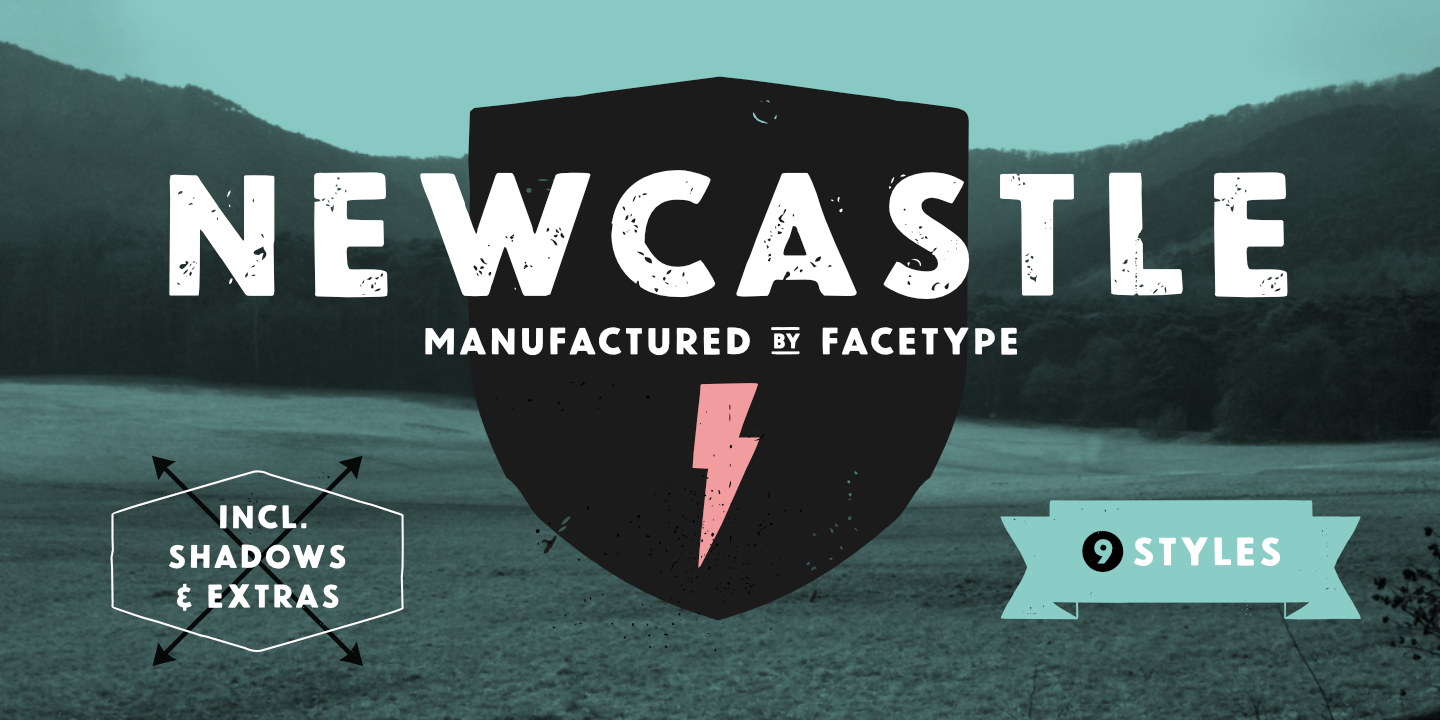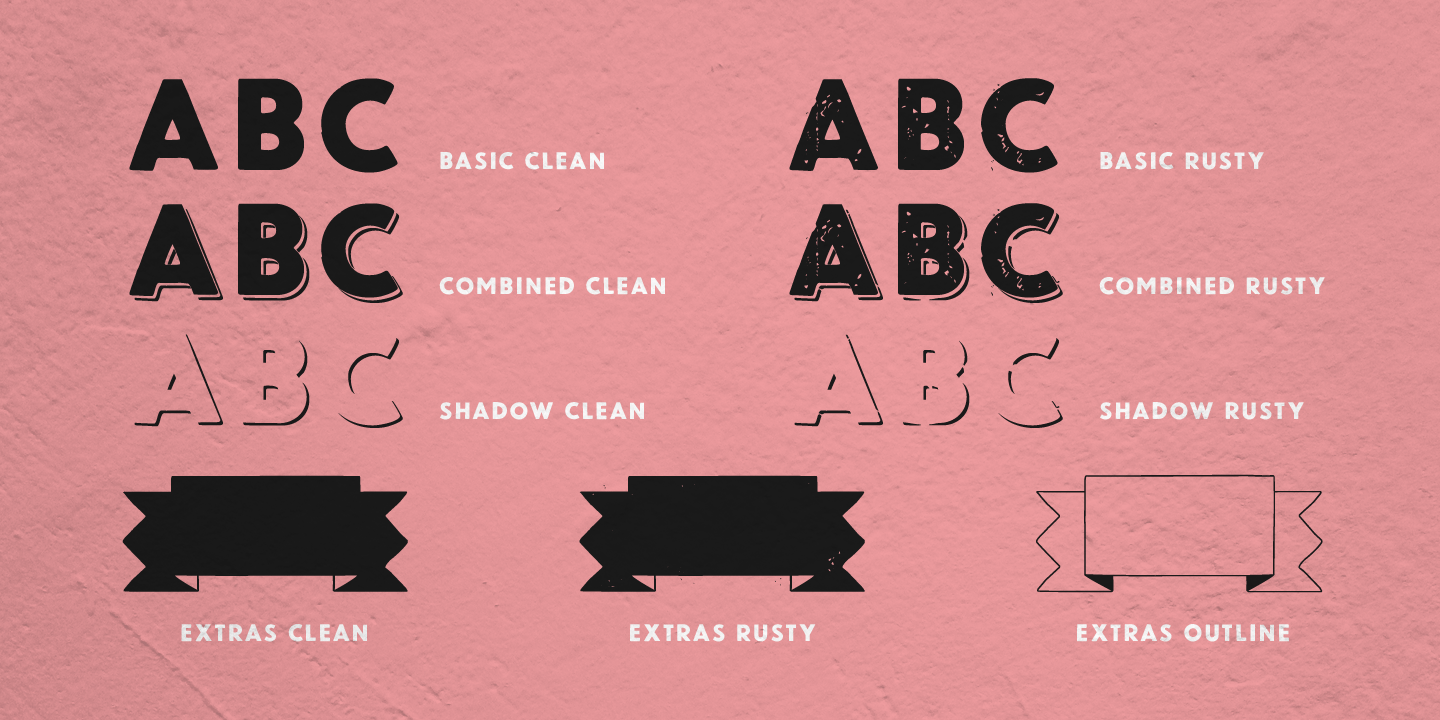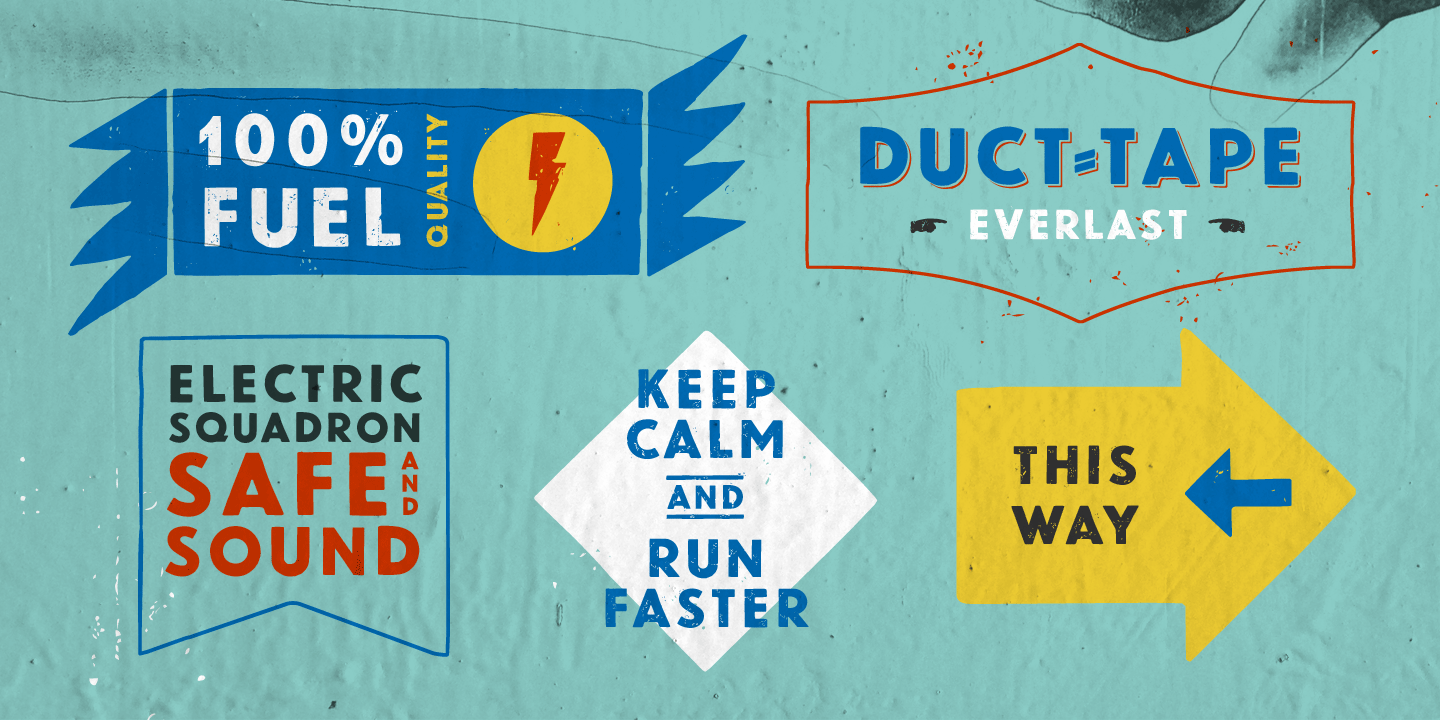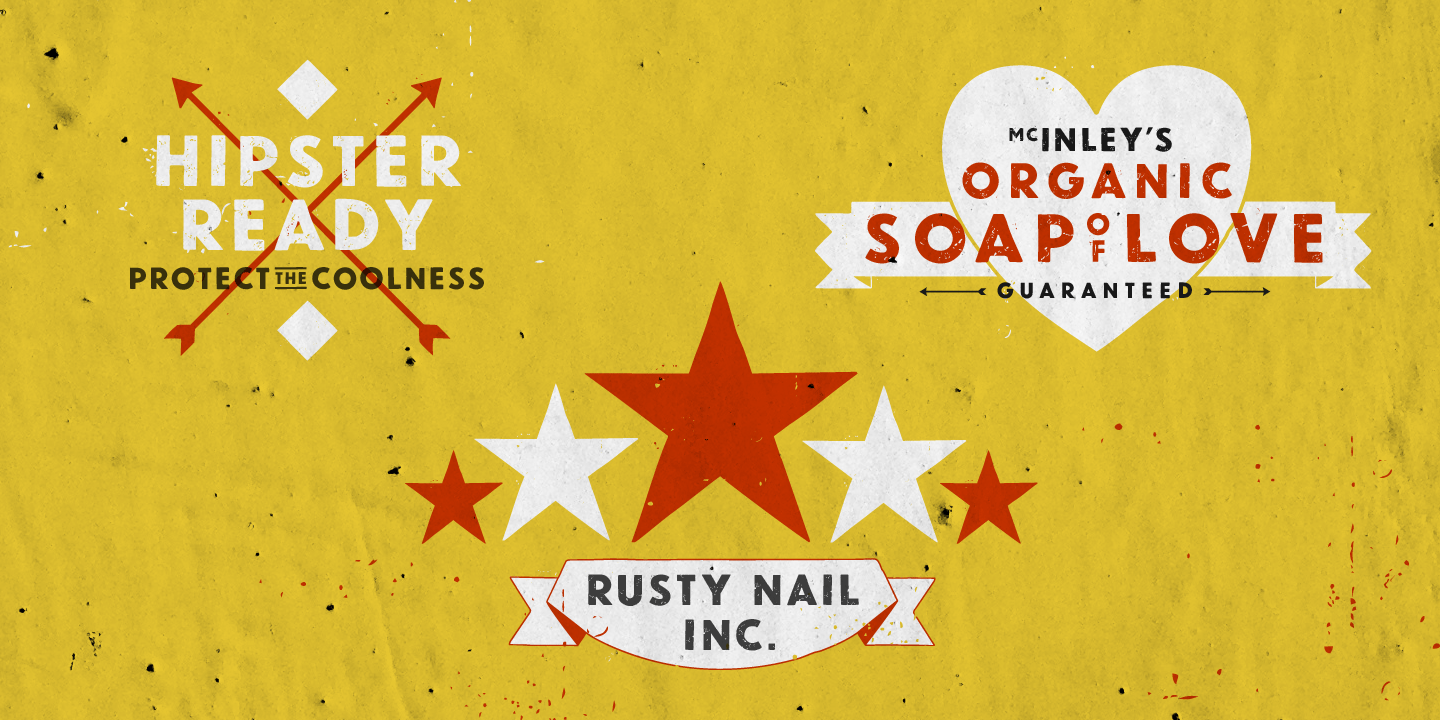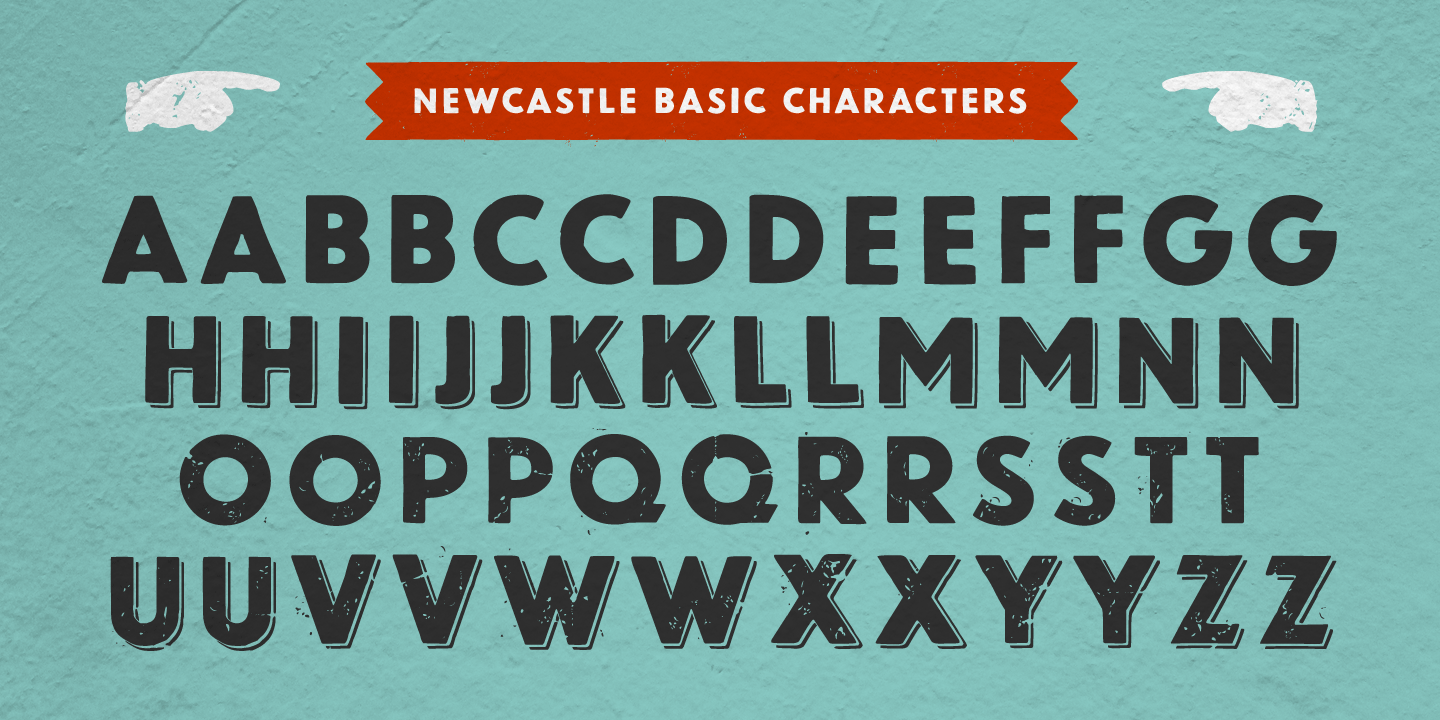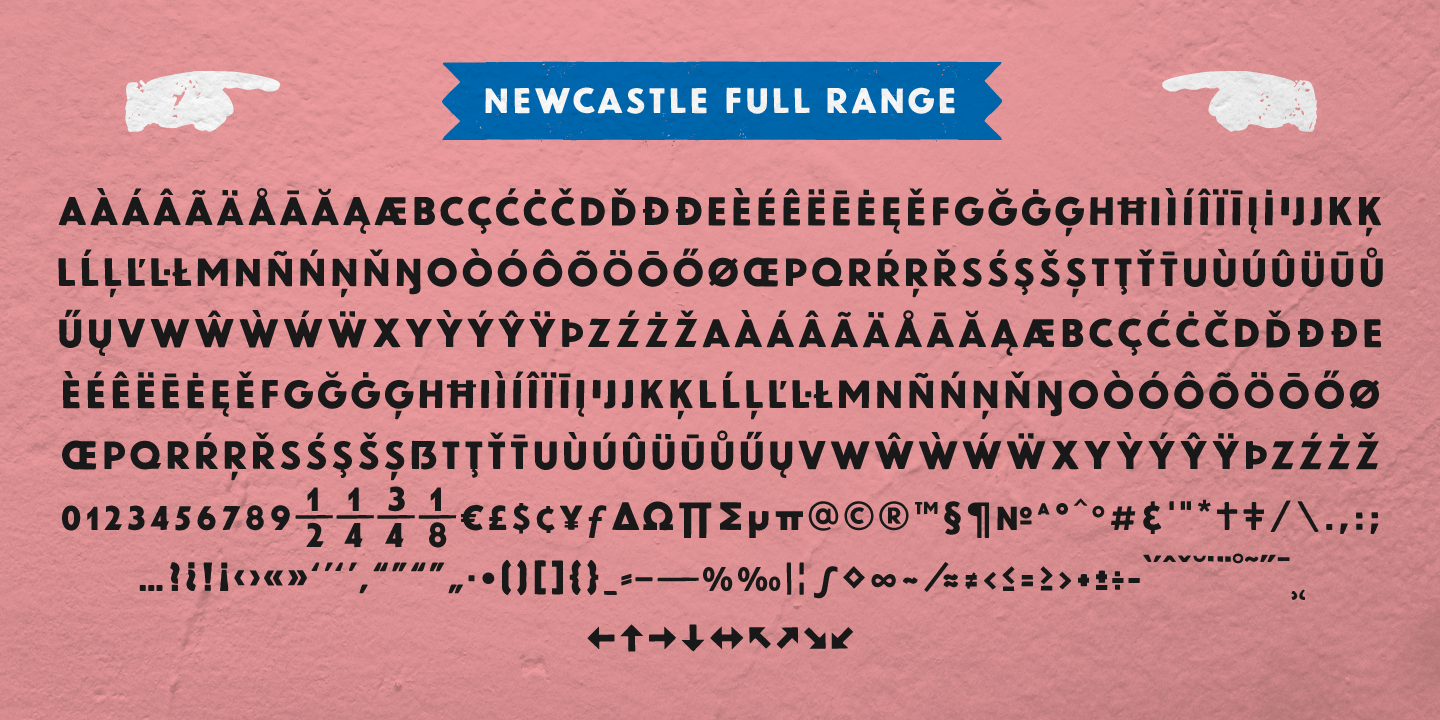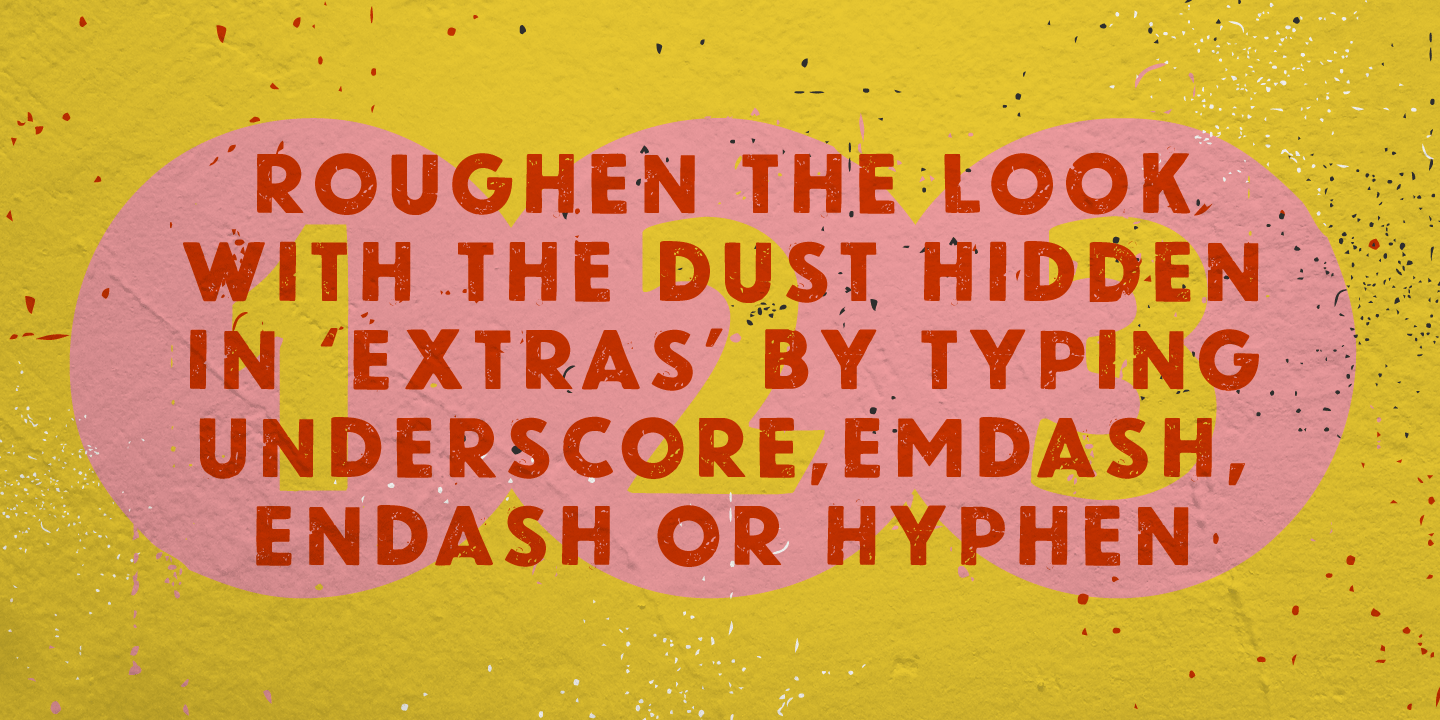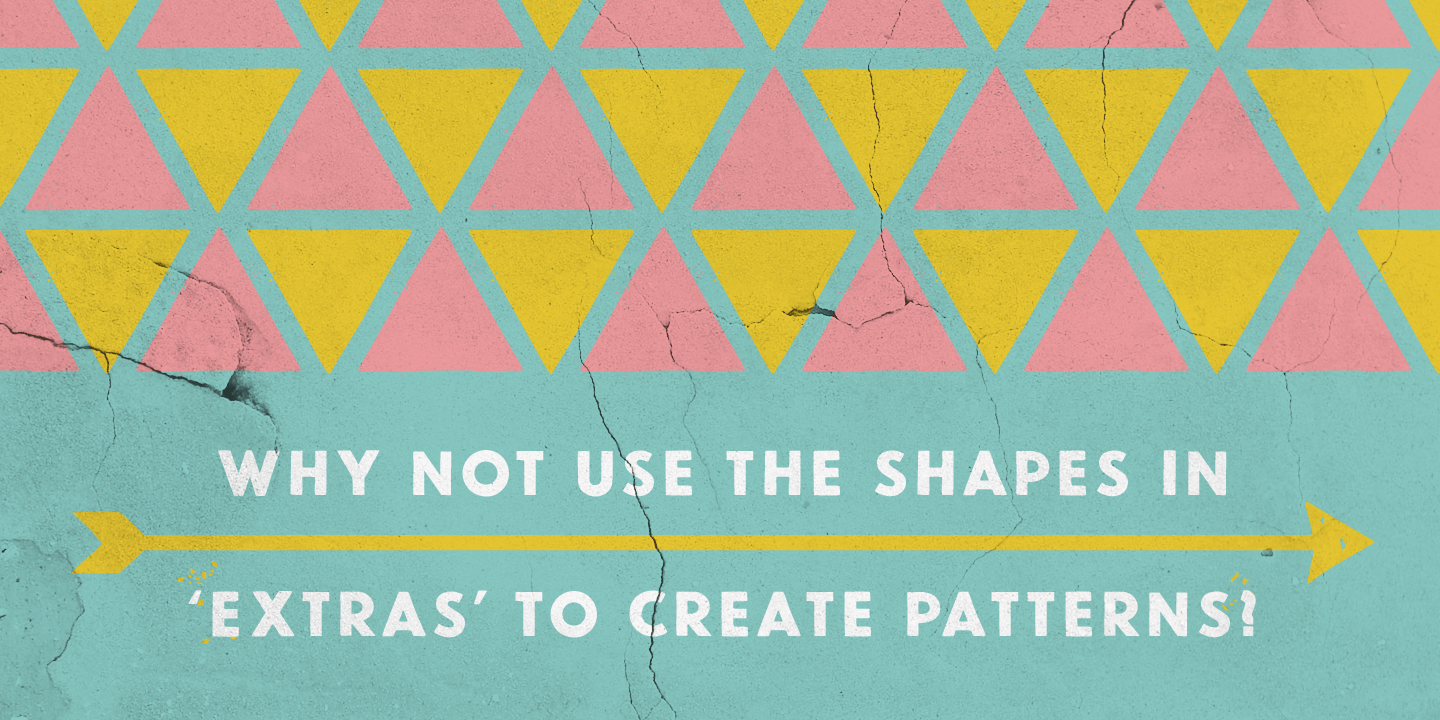
‘Newcastle’ gives you great opportunities for a typography with an industrial look.
Here is a lead to get the most out of Newcastle: Use ‘Discretionary Ligatures’ in the OpenType section of your layout program of choice to turn frequent short words like ‘and’, ‘of’ or ‘from’ into catchwords. Choose ‘Stylistic Set 01’ to make them vertical. Keep ‘Contextual Alternates’ activated to make consecutive letters look more realistic (the second letter will be replaced automatically by a slightly different looking version).
Want to roughen the look of your design even more? Add the dust hidden in the ‘Extras’ style by typing underscore, emdash, endash or hyphen.